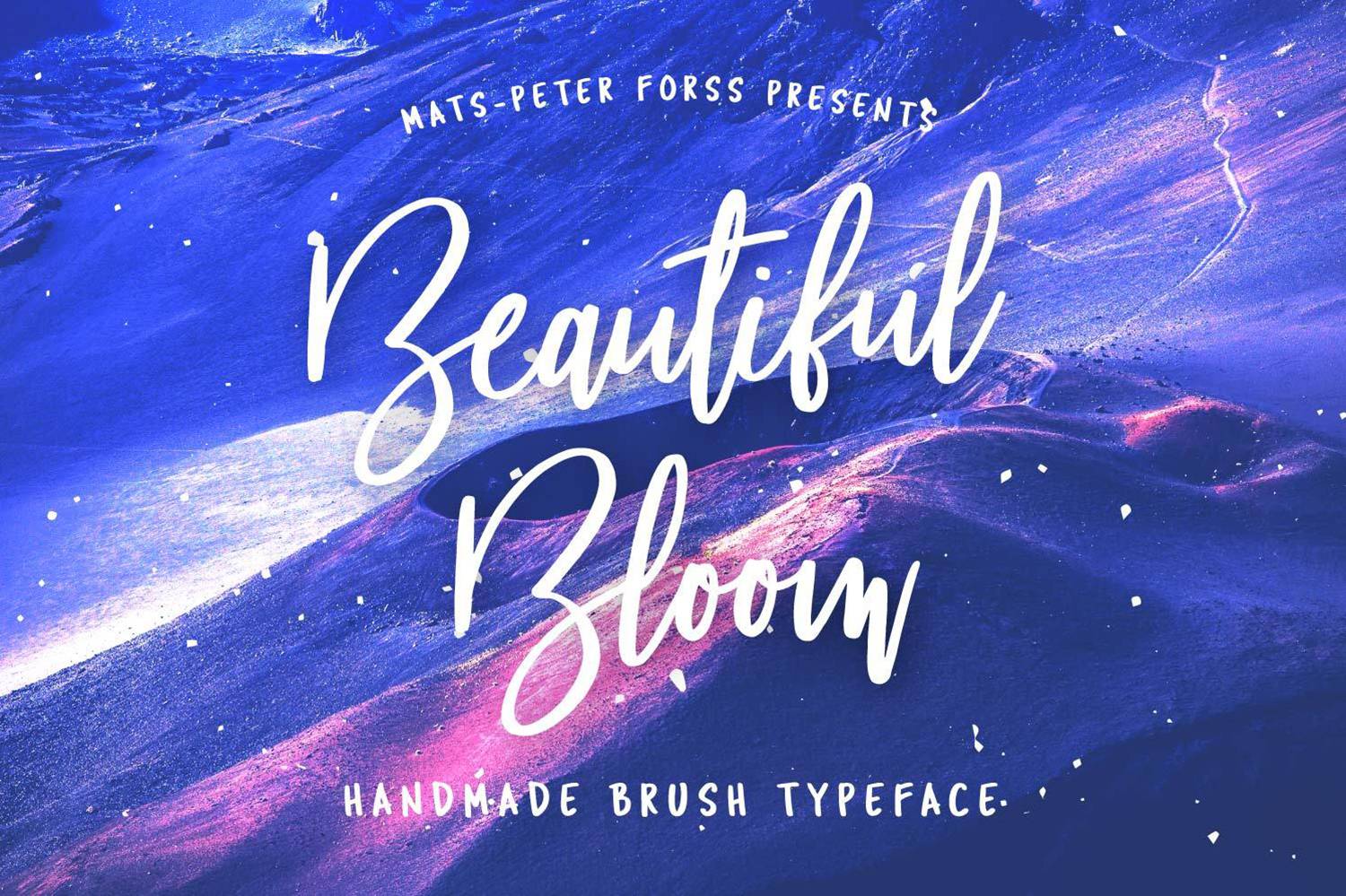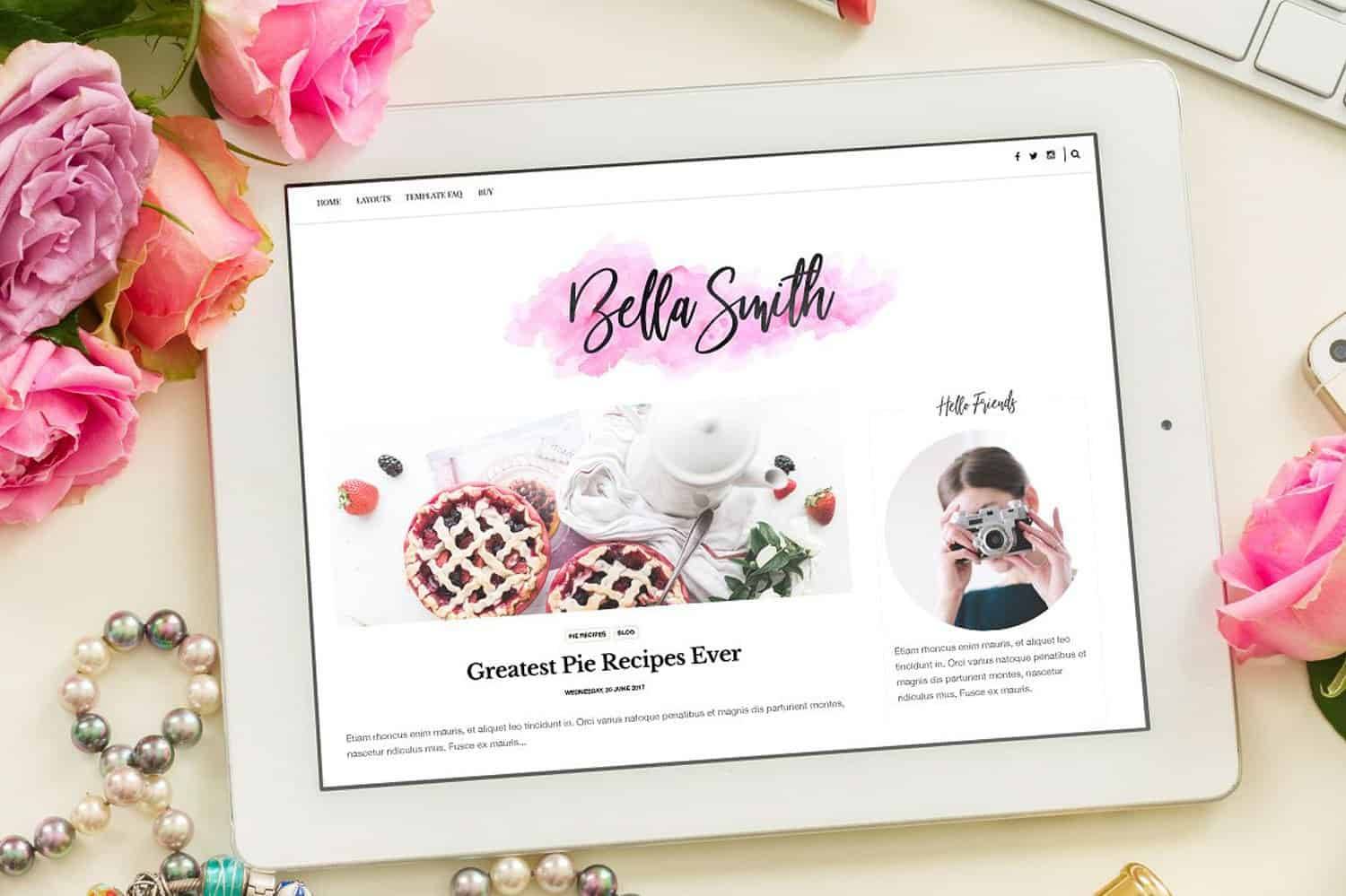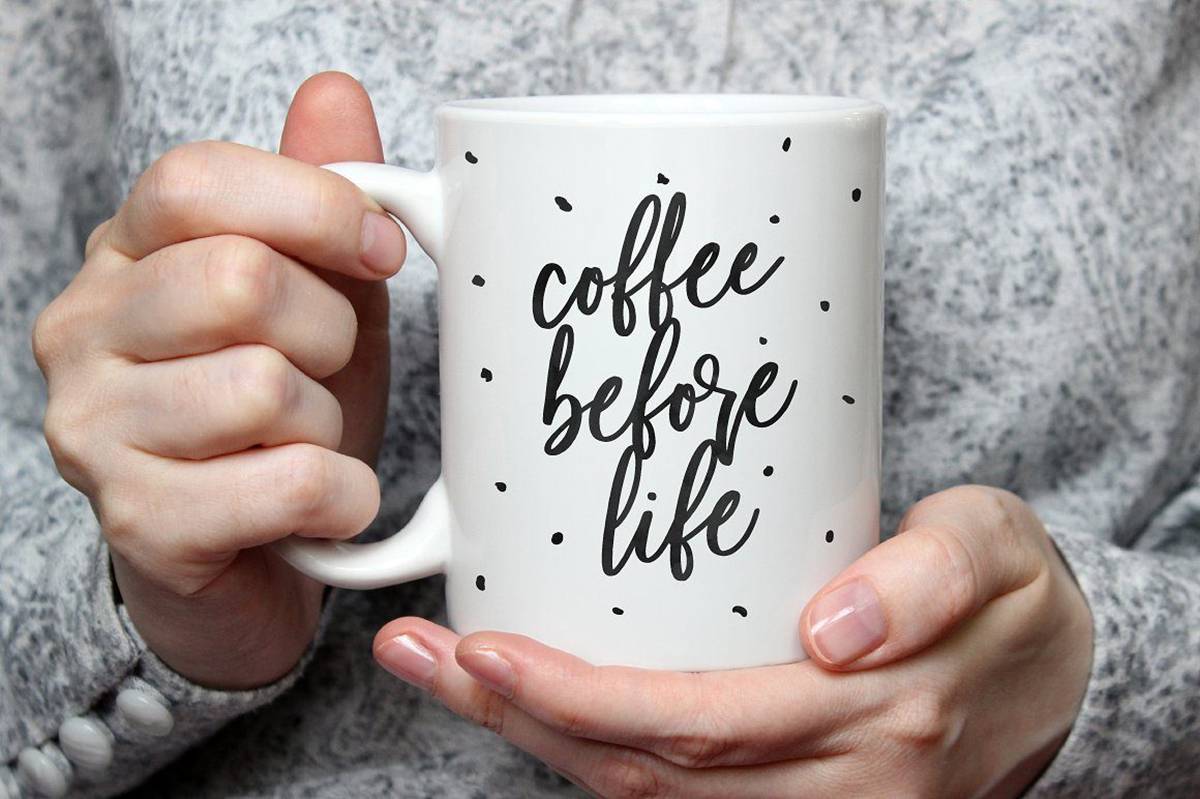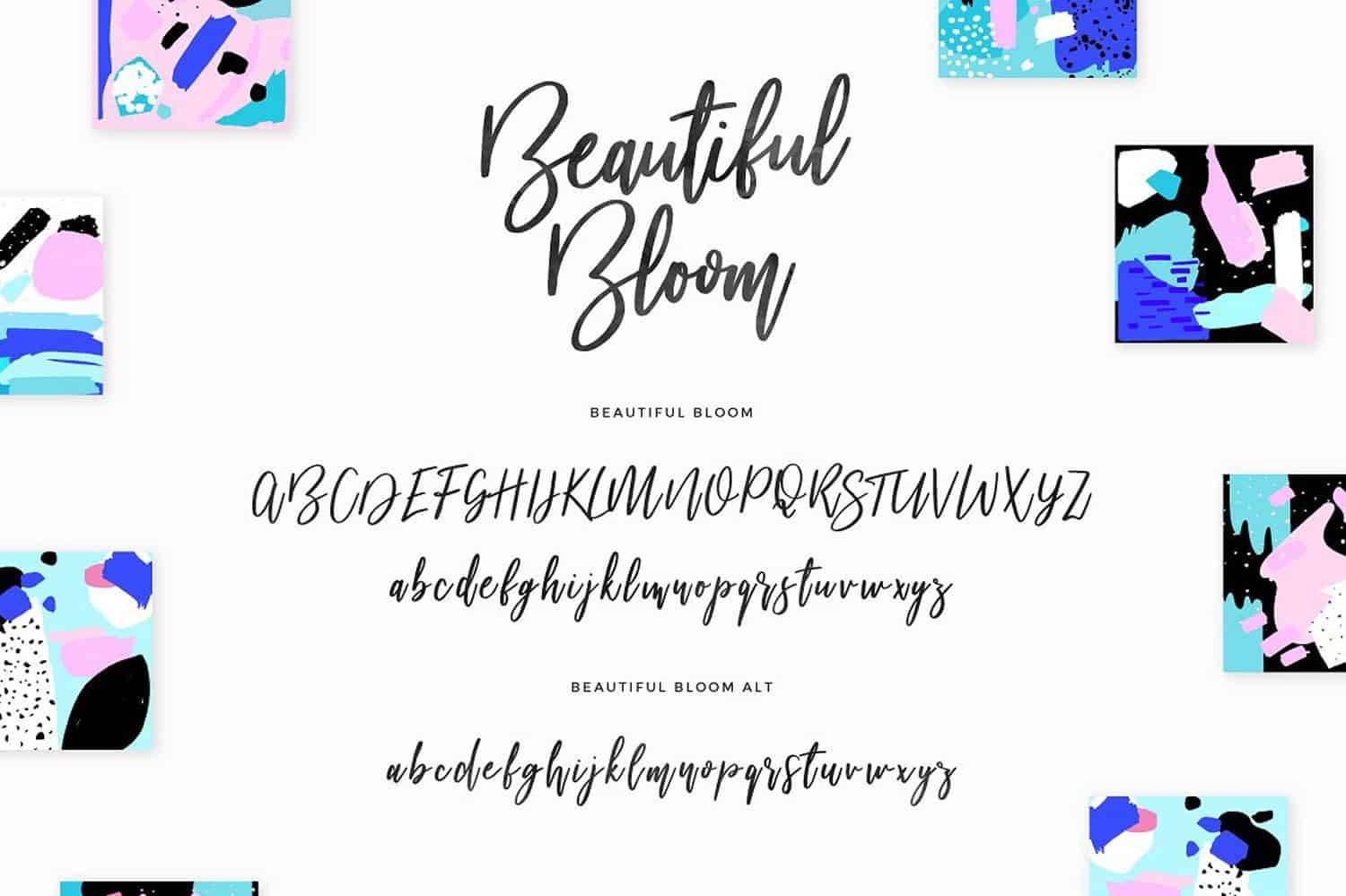
Beautiful Bloom is a graceful and lively script font with a hand-drawn feel, featuring flowing strokes and a moderately high contrast that brings an elegant yet approachable vibe. Its playful, energetic letterforms make it perfect for creative projects like invitations, branding, and social media, where a personal and stylish touch is desired. This font shines in uses that benefit from a warm, decorative flair without sacrificing readability.
| Font family | Beautiful Bloom Font |
| Designer | Mats-Peter Forss / WornOutMedia |